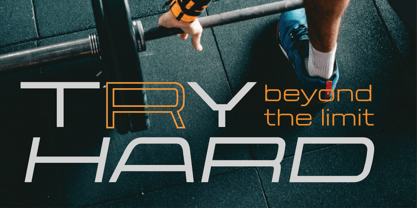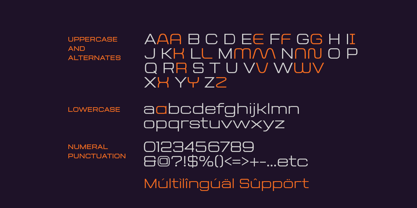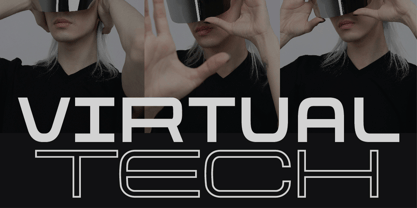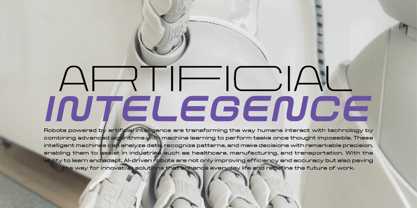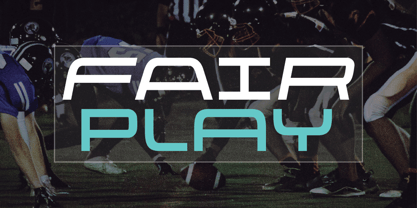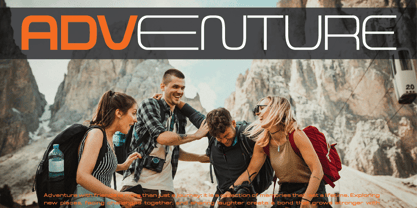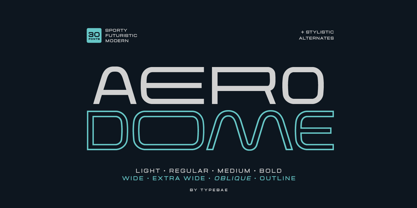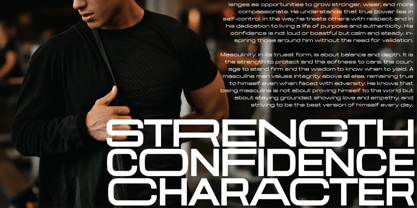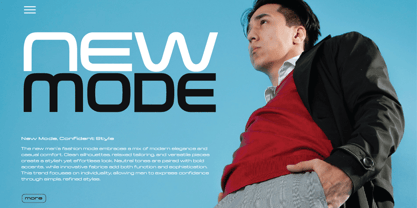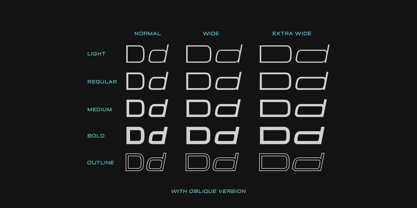
Aerodome
by Typebae
The Aerodome Font Family was designed by Iqbal Pauji and published by Typebae. Aerodome contains 30 styles and family package options.
Aerodome is a modern futuristic font family designed to deliver a bold and clean look for high-impact designs. It comes as a variable font with styles, including Light, Regular, Medium, Bold, with Wide, Extra Wide, Oblique, and Outline versions. To provide even more creative flexibility, Aerodome includes stylistic alternates for unique letter variations. This font family is perfect for branding, logos, posters, tech projects, UI/UX, packaging, modern editorial layouts, and any design that needs a sleek futuristic touch. Each character is meticulously designed, offering geometric precision and visual balance for professional results. What’s Included: Stylistic Alternates for creative variations PUA Encoded & Multilingual Support